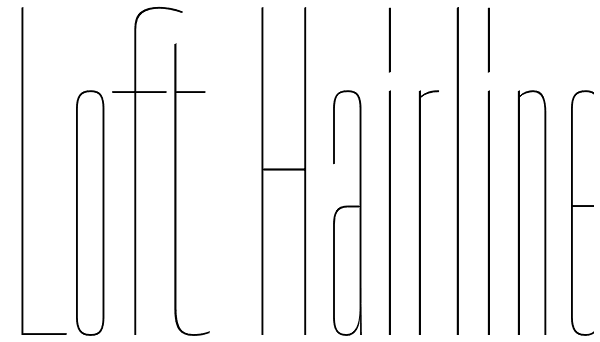
Loft
Loft is a typeface family of extremes: from the extra compressed Hairline to the extra wide Mammoth. Paris-based designer Julien Janiszewski’s aim was to create a type family based on a strict hierarchy — a suite that would provide graphic designers...